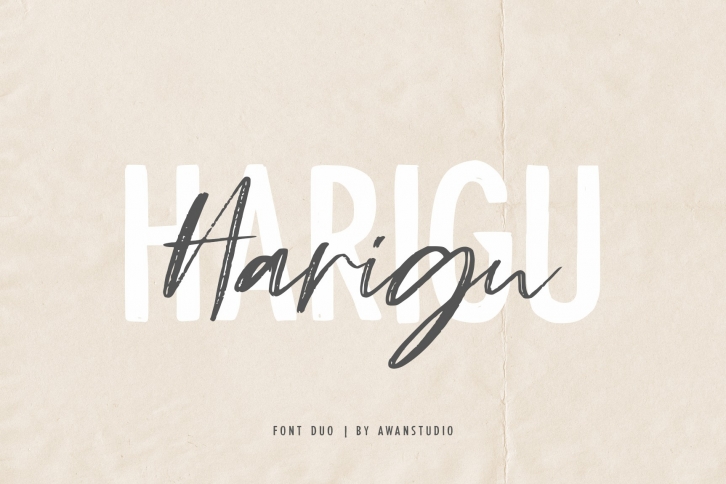
Harigu Duo is a gorgeous font that was realeased on June 20, 2019. The font can be used in many style contexts and design environments. Perfect for invitations, magazines, websites, logos, and more! It was designed by Awanstudio and the file size is 17.67 MB. Thanks for checking out this font!